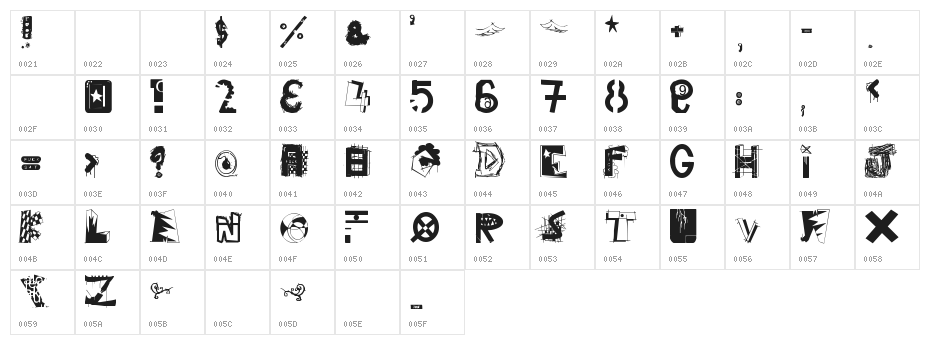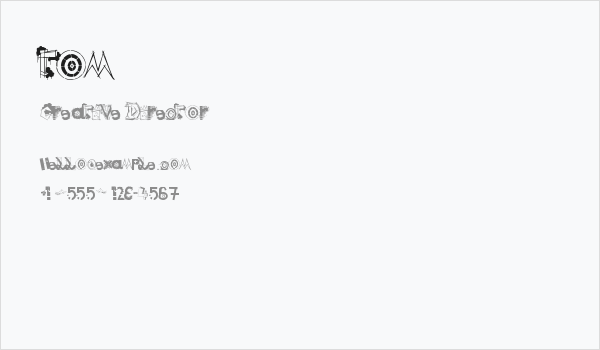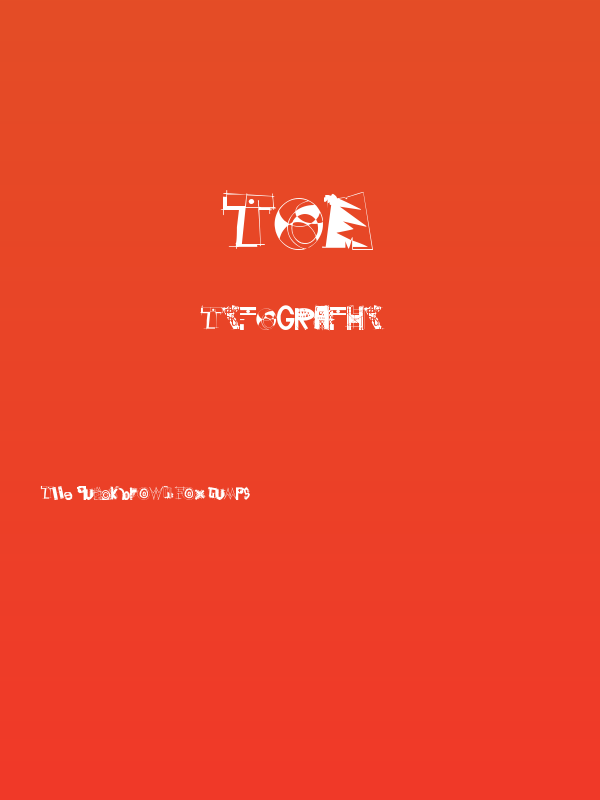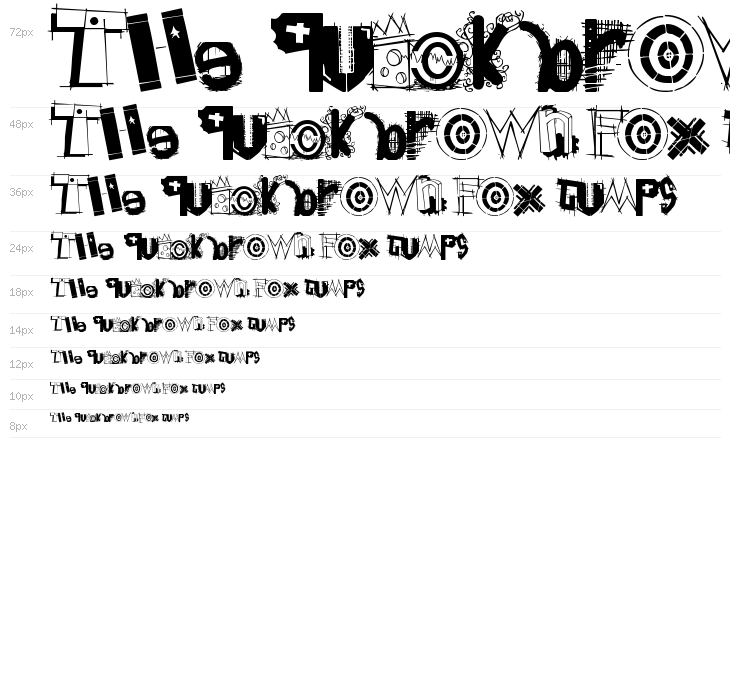
tom Font
tom Description
This font is a highly creative and eclectic display typeface, featuring a mix of abstract and illustrative elements within each character. Each letter and number is uniquely designed with various textures, patterns, and shapes, creating a chaotic yet artistic appearance. The font includes elements such as stars, stripes, and geometric shapes, giving it a playful and rebellious vibe. The characters are bold and eye-catching, making them ideal for projects that require a strong visual impact. The overall style is reminiscent of graffiti or street art, with a modern twist.
| Overall Style | Modern, Artistic, Graffiti |
| Proposed Projects | Ideal for album covers, posters, street art-inspired designs, and creative branding projects. |